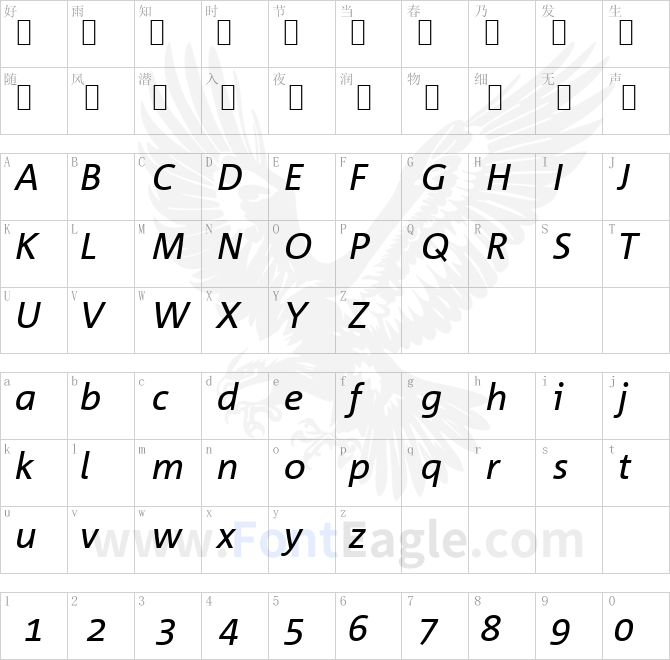
- Font name:CorpidOffice
- Font Subfamily ID:Luc[as]deGroot: CorpidOffice Italic: 2000
- Font Full Name:CorpidOffice Italic
- Font Version:Version 2.2; 2000
- Postscript:CorpidOffice-Italic
- Font Copyright:Copyright 1999 Luc[as] de Groot, published by LucasFonts.